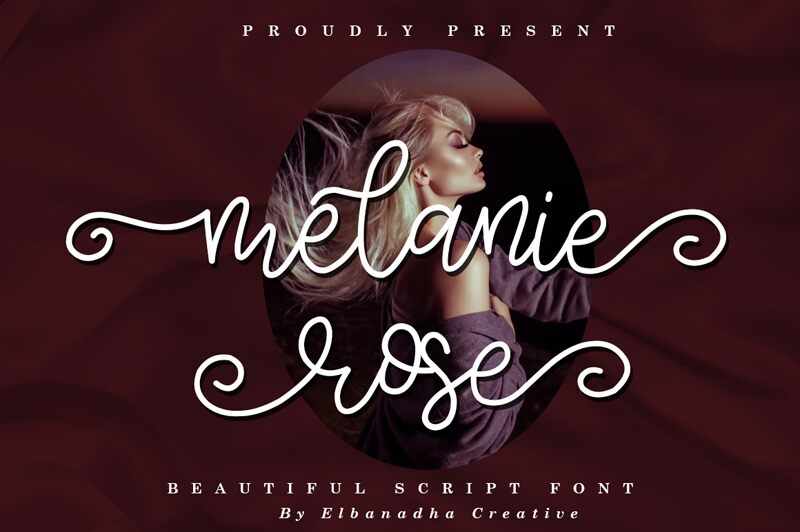
Melanie Rose, designed by Elbanadha Creative, is a charming and delicate semi-light font with a whimsical curly handwritten style. Its graceful curves and playful nature make it perfect for projects requiring a touch of elegance and femininity.
Use Melanie Rose to bring a sense of romance to wedding invitations or to add a personal touch to scrapbooking. This versatile font also shines in the digital world, enhancing blog headers or social media graphics with its unique flair.
Let Melanie Rose transport your designs into a world of beauty and enchantment.